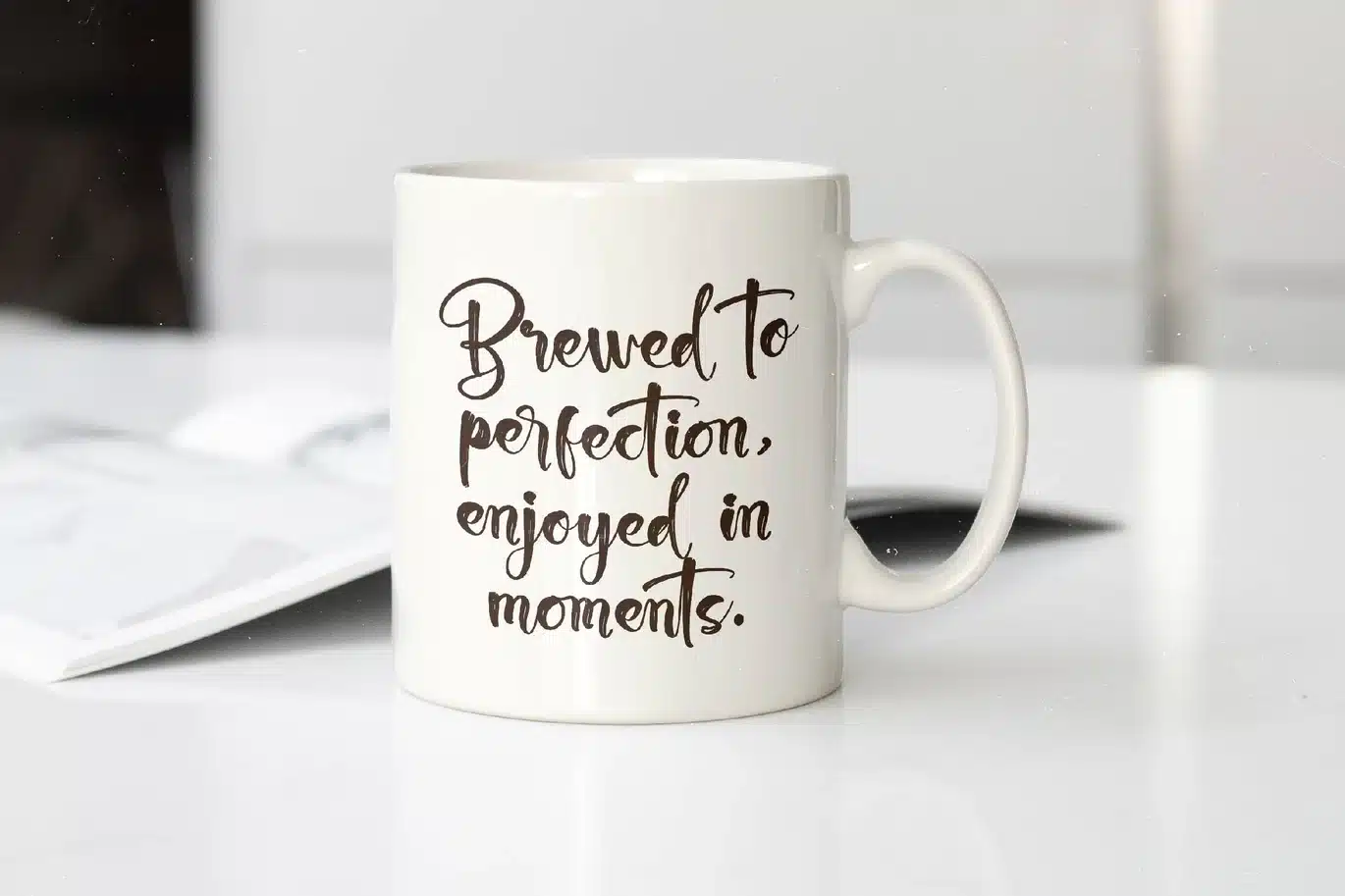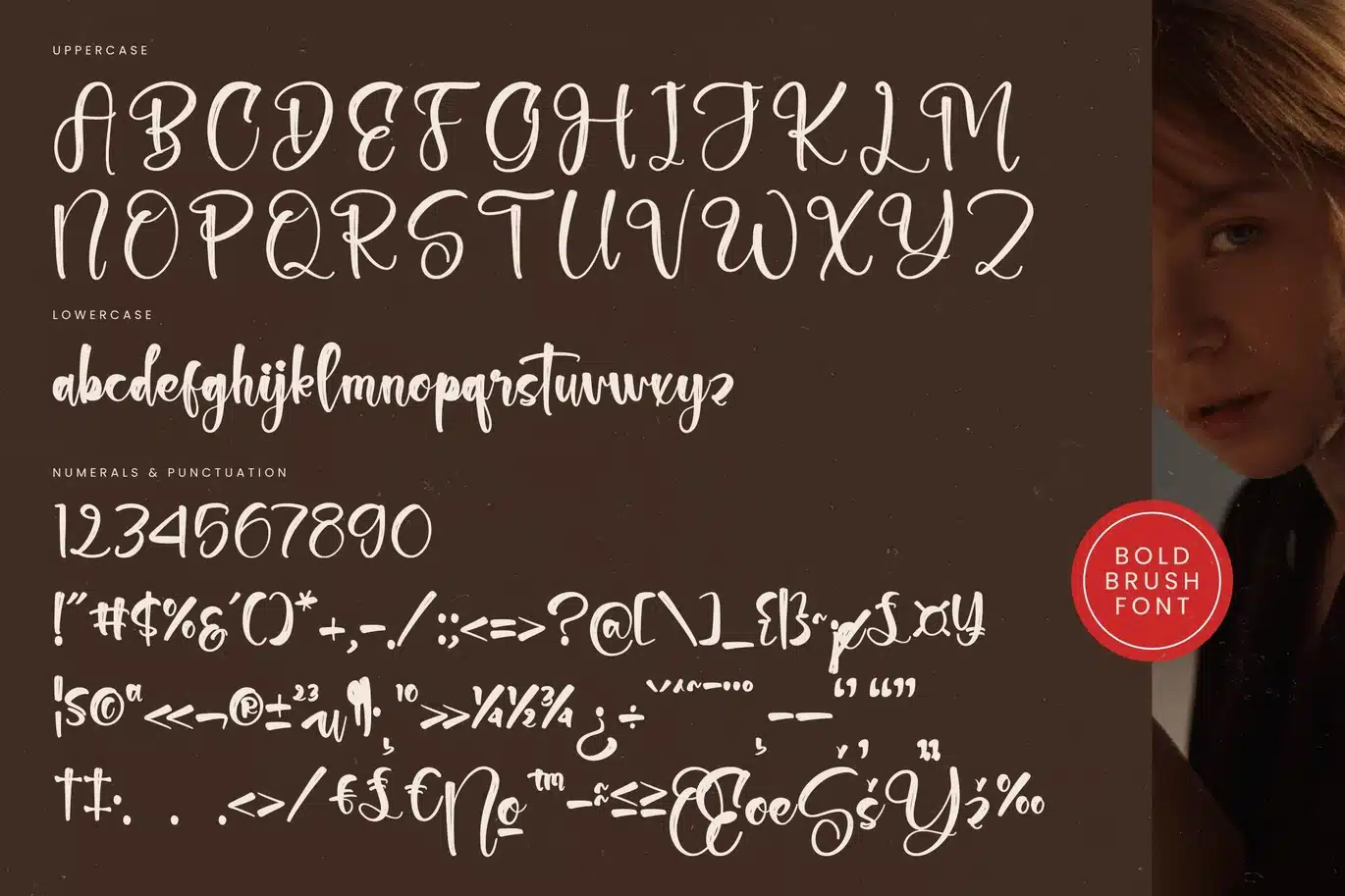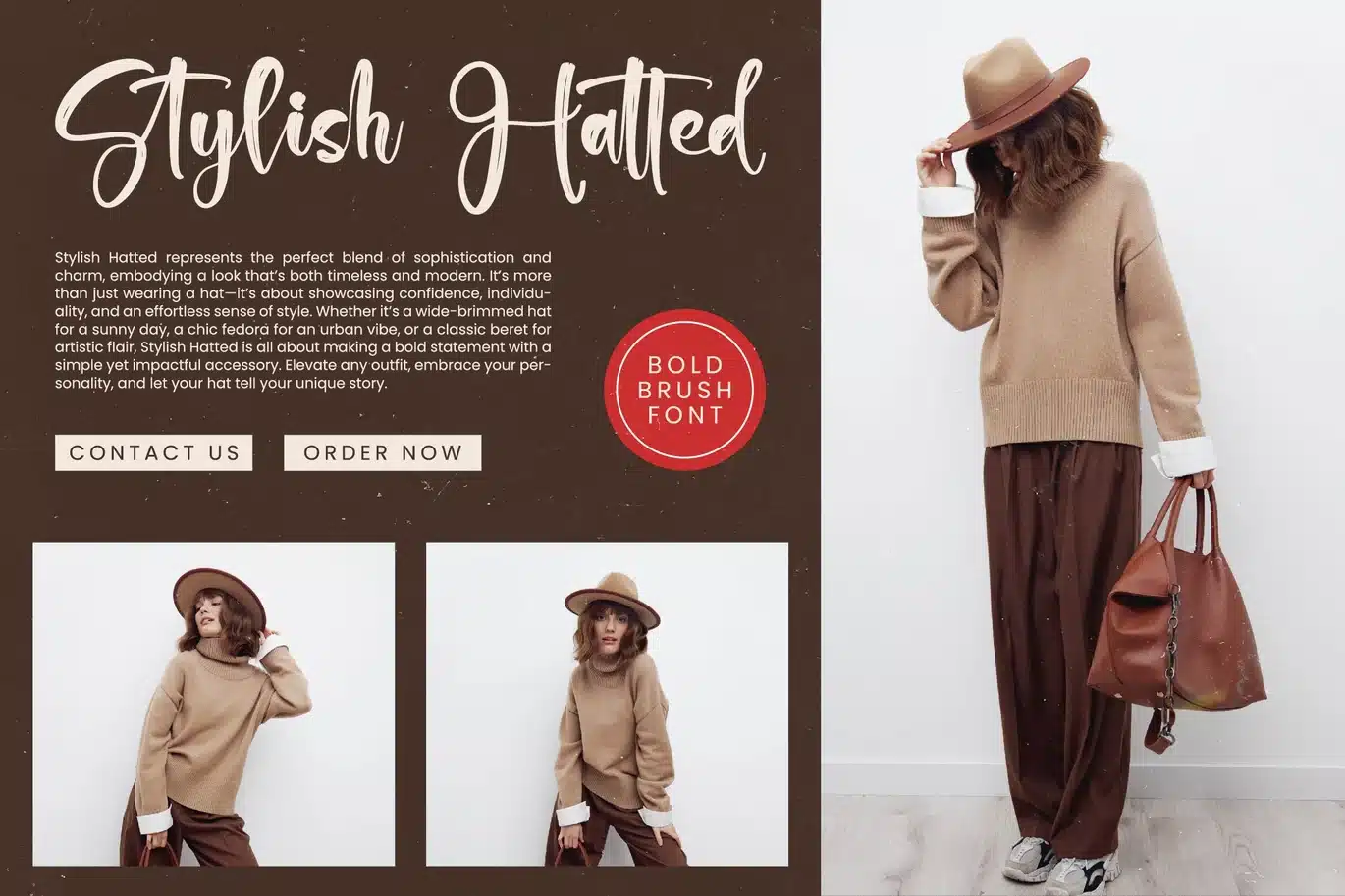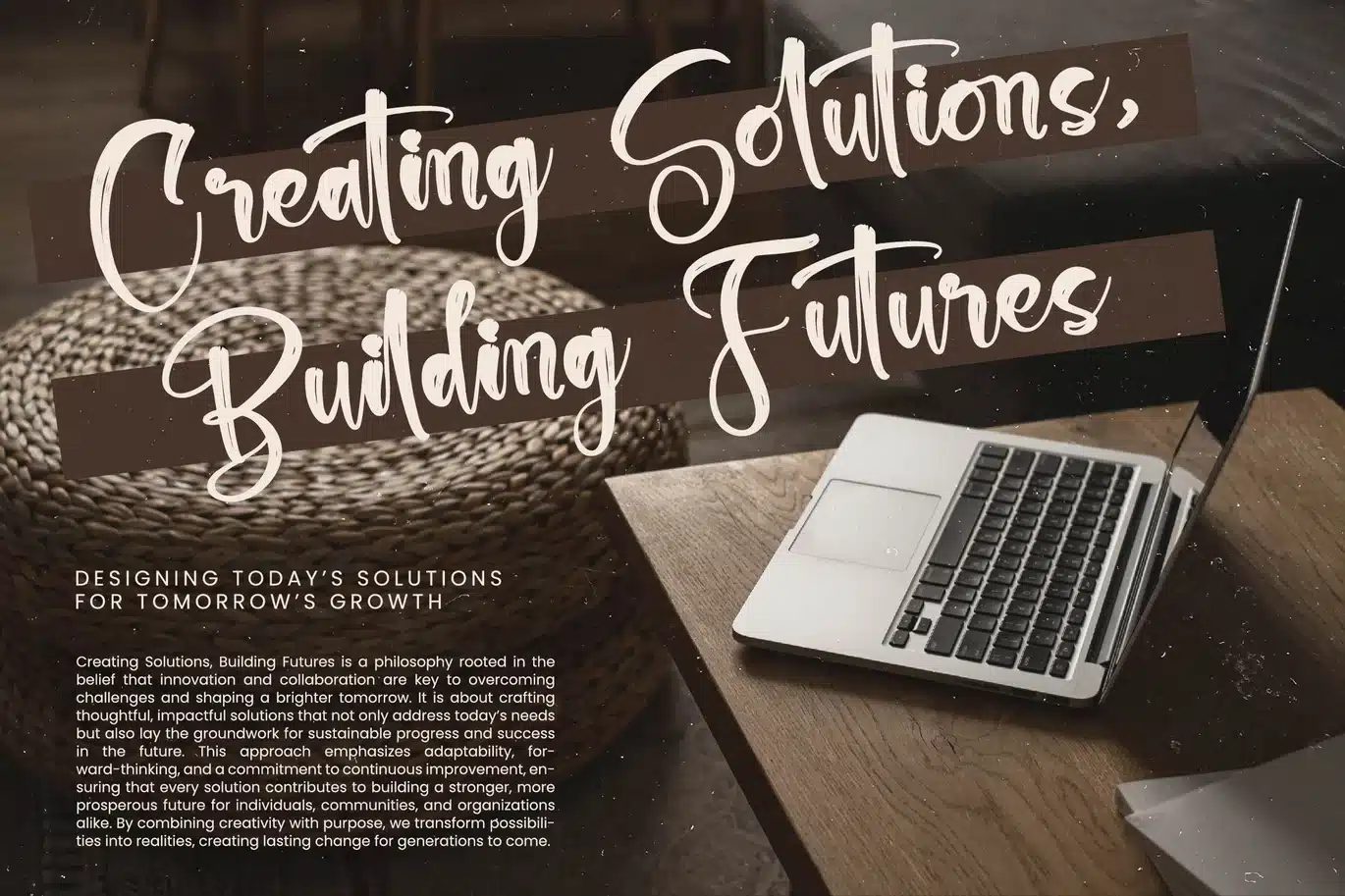
Chinstrap Stucky – Bold Brush Font
Chinstrap Stucky - Bold Brush Font
Ignite your designs with the raw energy and sophisticated charm of Font Chinstrap Stucky - Bold Brush Font Script. This exceptional typeface masterfully blends the organic spontaneity of hand-drawn brush strokes with a polished, professional finish, creating an instantly captivating visual presence. Its authentic, expressive character ensures that your message stands out with an undeniable sense of artistic craftsmanship and bold statement.
Unlock unparalleled creative potential with Font Chinstrap Stucky - Bold Brush Font Script, a font engineered for dynamic and versatile design. Featuring an impressive collection of 139 ligatures, 52 alternate characters, and 12 stylistic swashes, this script offers an abundance of customization options. These rich OpenType features empower designers to craft truly unique designs and tailored typography, ensuring every project possesses its own distinctive flair.